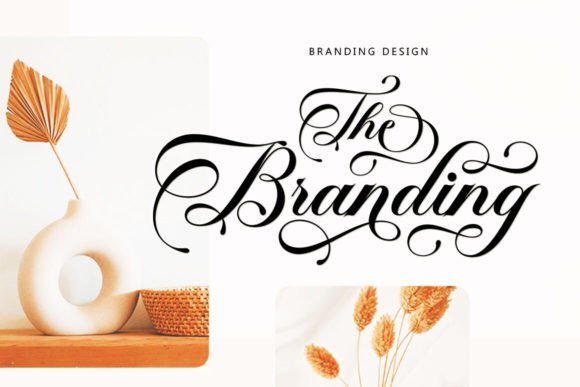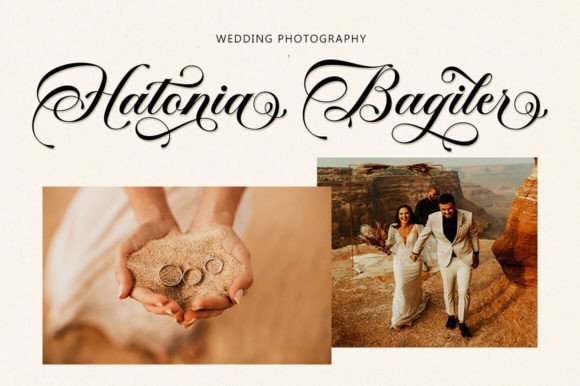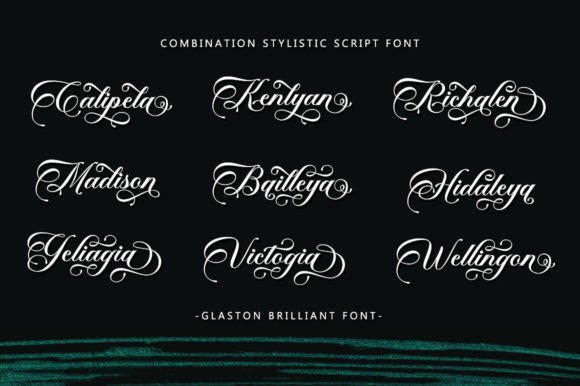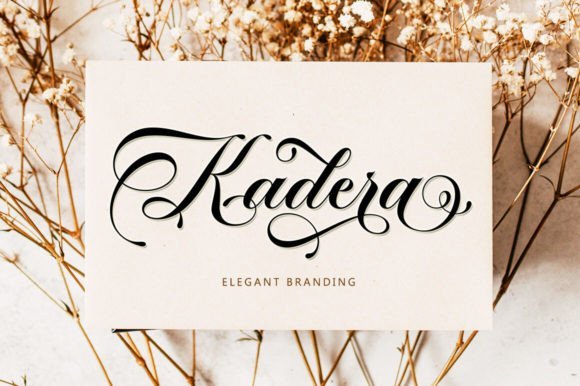
Glanston Brilliant Font
Glanston Brilliant Script is an Elegant script font that comes with a very beautiful character change, a type of classic copper decorative script with a luxurious touch, designed with great detail to present an elegant style.